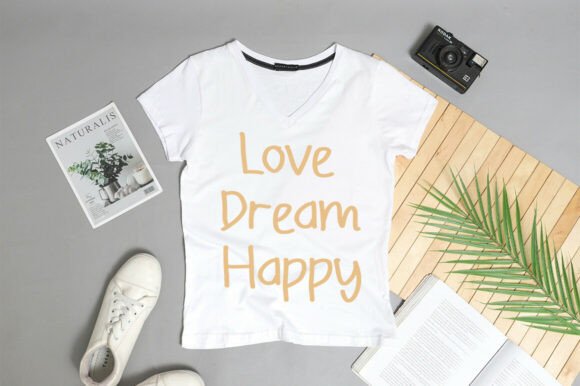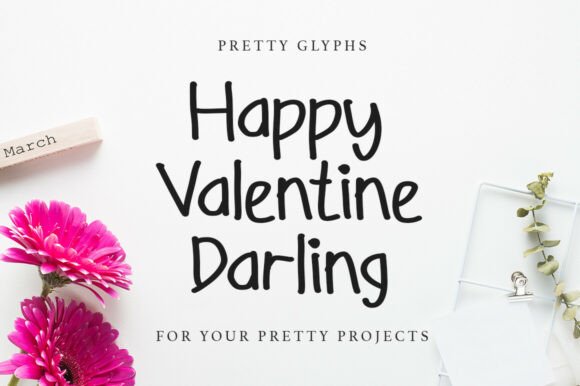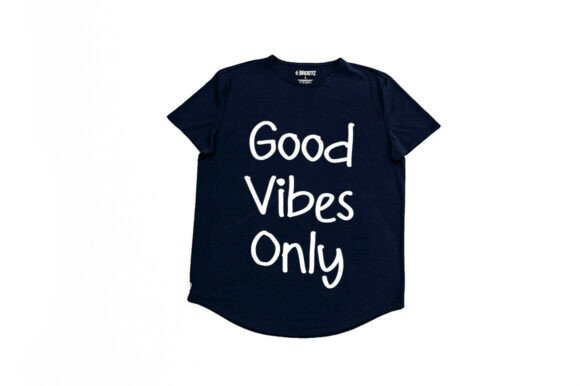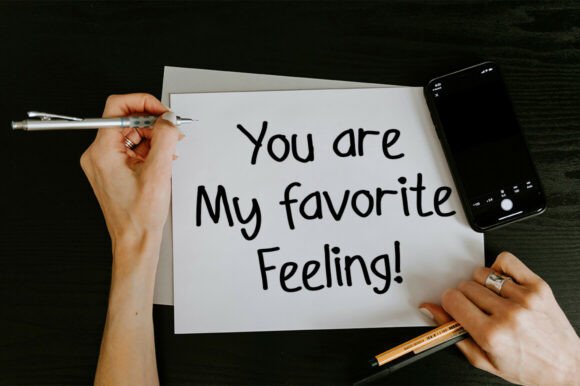
Introduction to Kids Brush Font
This handwritten brush font is crafted to feel bold, expressive, and effortlessly stylish.
Inspired by real brush lettering, each character features natural strokes, dynamic movement, and a handcrafted texture that instantly elevates any design Designed for creatives who want strong personality and authentic vibes, this font brings a perfect balance between casual freedom and modern aesthetics.